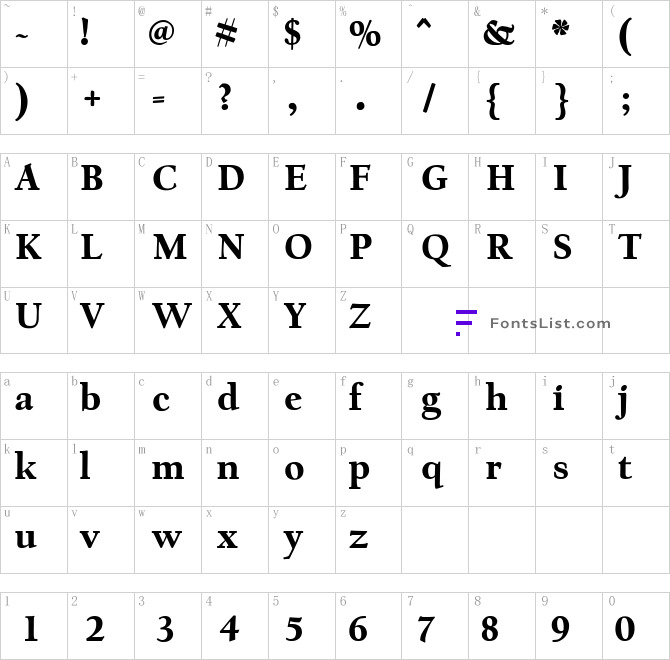
- Font Name:CalifornianText
CalifornianText-Bold.ttf is a very beautiful artistic font, CalifornianText-Bold.ttf is widely used in the design and printing of various books and pictures,CalifornianText-Bold.ttf has a strong visual impact,CalifornianText-Bold.ttf is a commonly used font in newspapers, magazines and books, and is used in posters, e-commerce Poster design, store design, logo design, font design and other fields.CalifornianText-Bold.